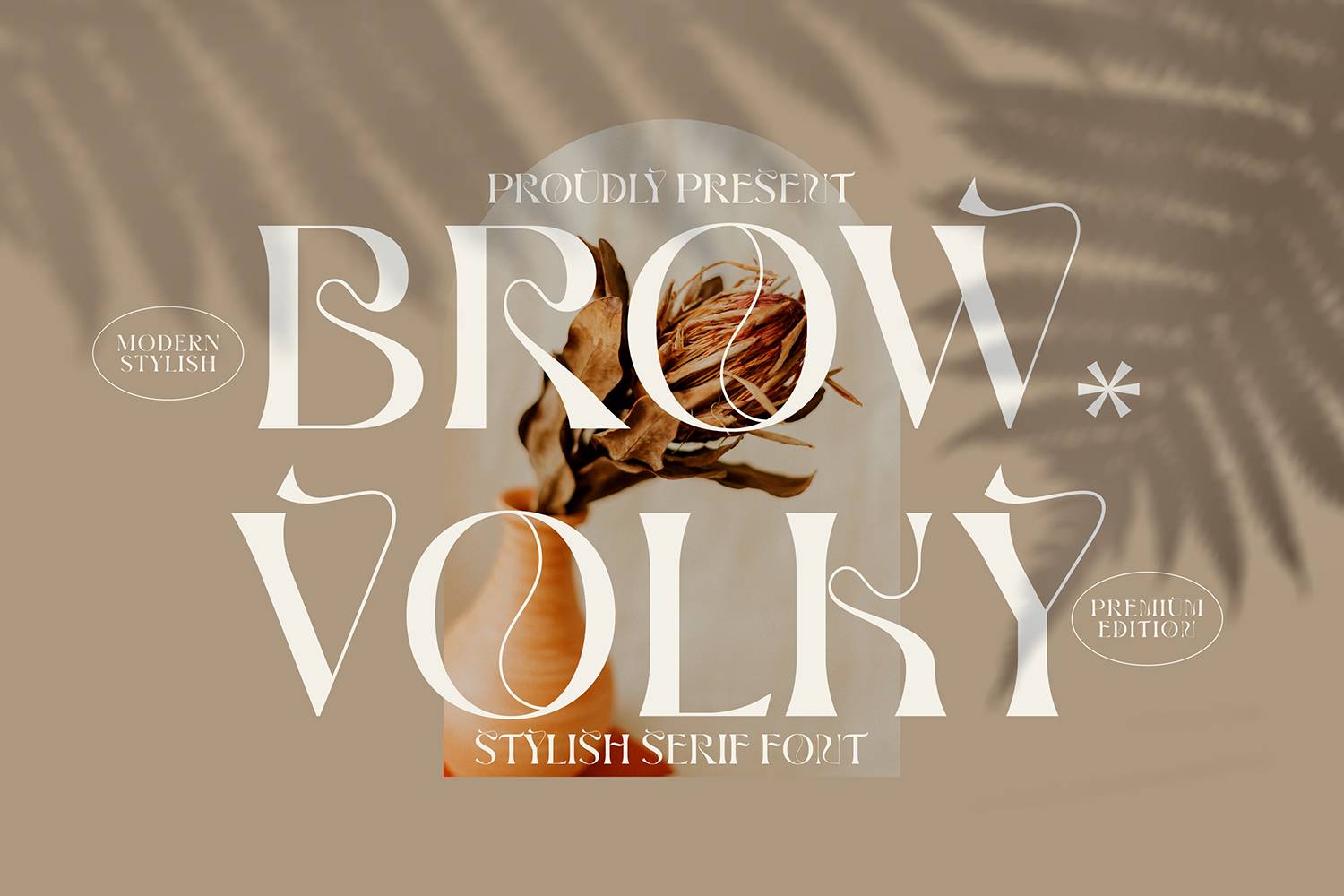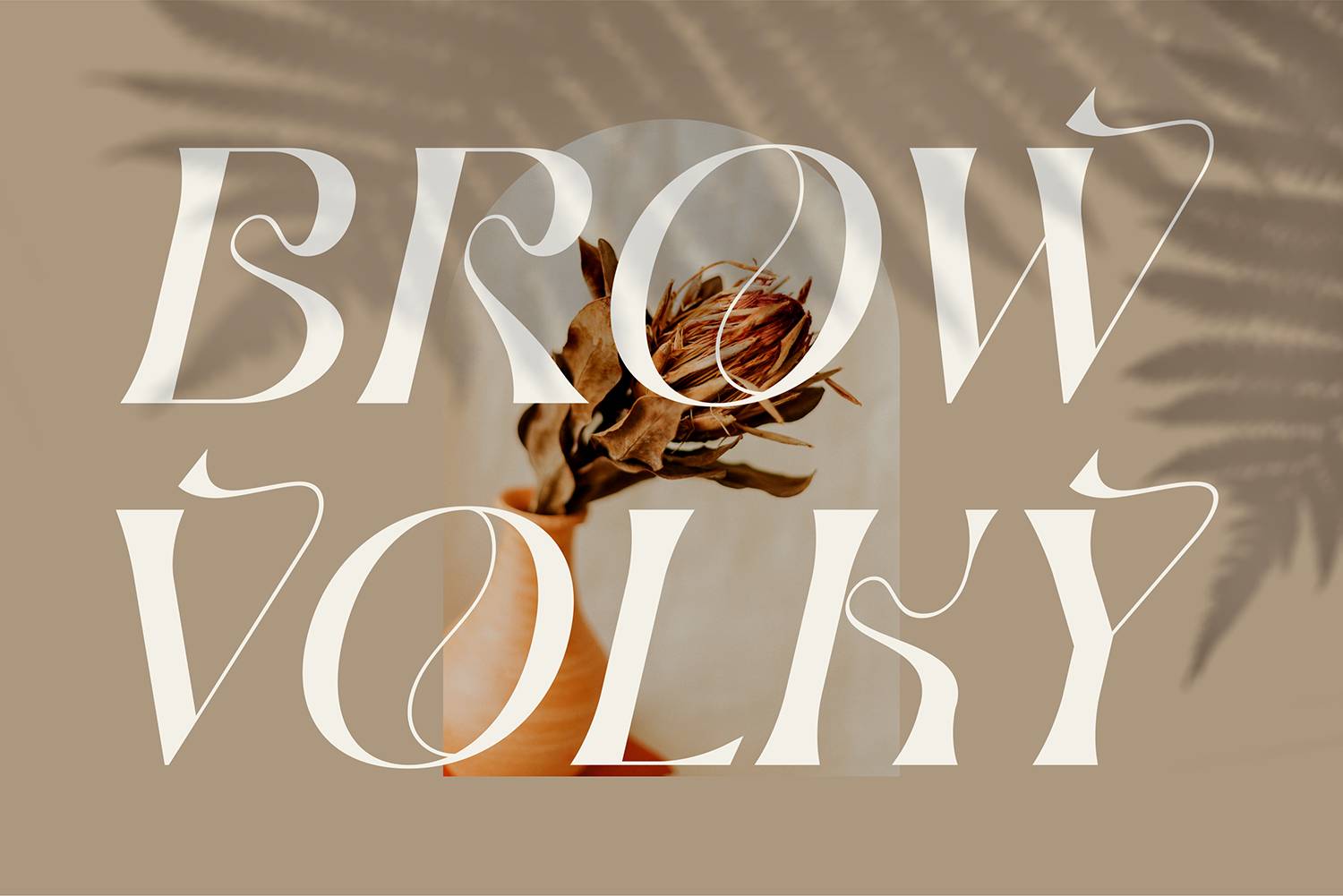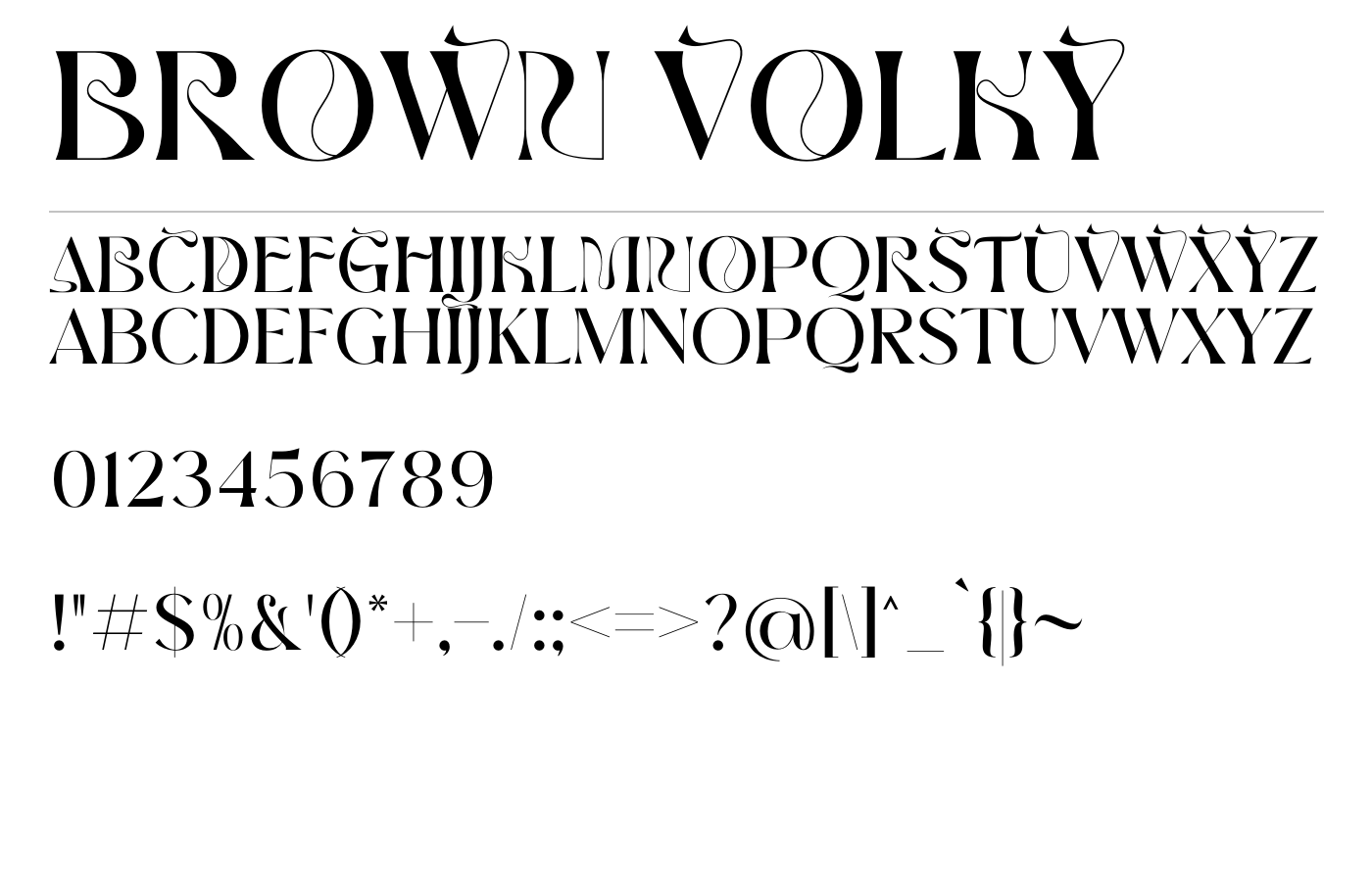
Brow Volky is a striking serif font with high contrast between thick and thin strokes, featuring elegant, sharp serifs and artistic, swirling details that add a whimsical, modern flair. Its tall, narrow forms and unique letter shapes create a sophisticated yet playful personality, making it an excellent choice for fashion branding, editorial headlines, and upscale packaging where a bold visual impact is desired.
Brow Volky Font